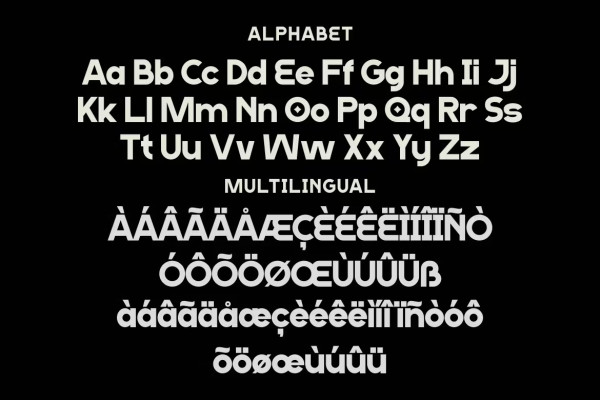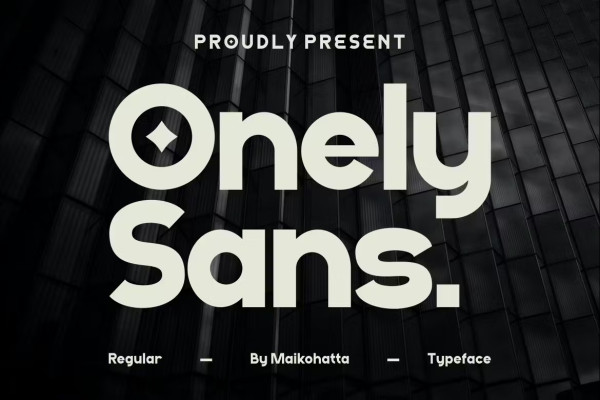
Onely Sans Font
Onely Sans Font – Modern Font is a bold and authentic display font. The font is suitable for any branding project such as logo, Template design, e-sport, etc. She is exceptional in a wide range of contexts